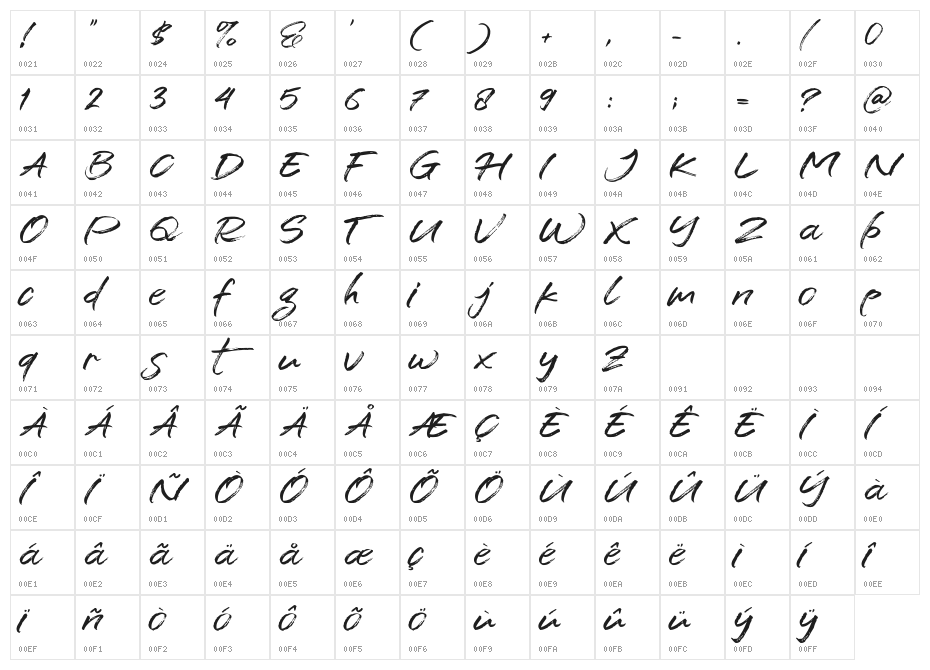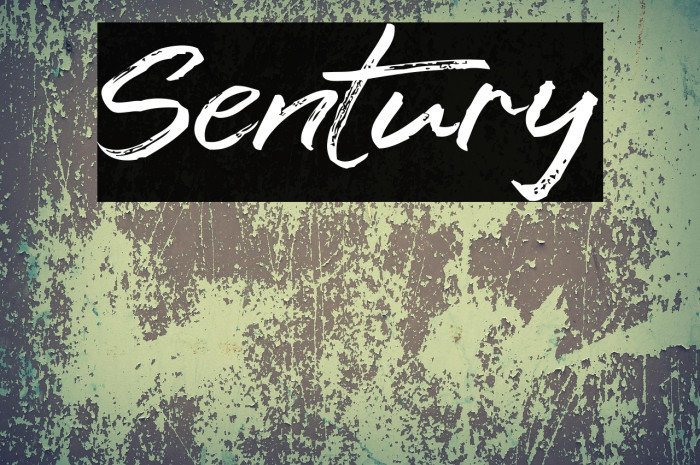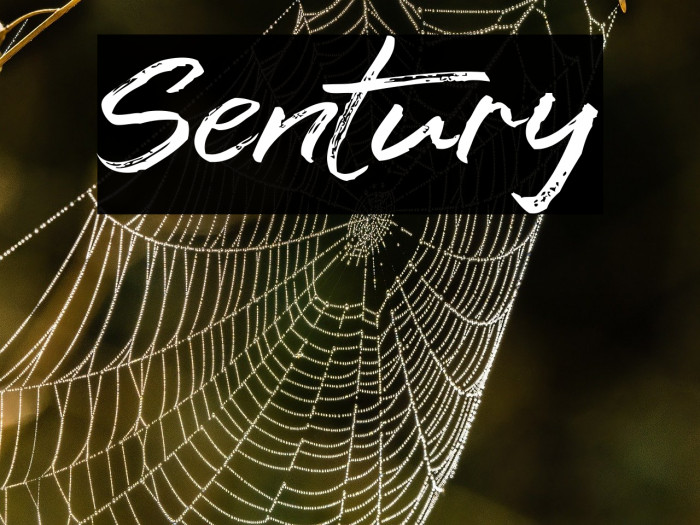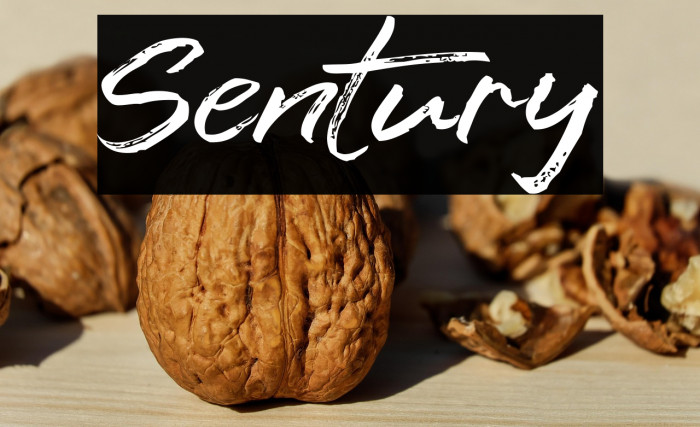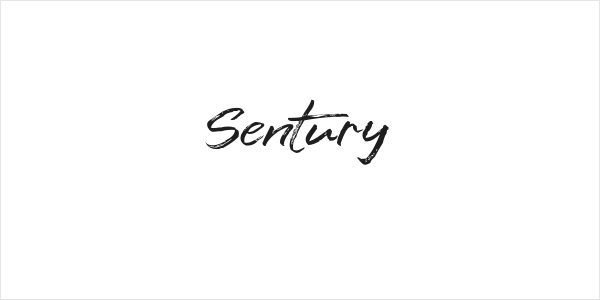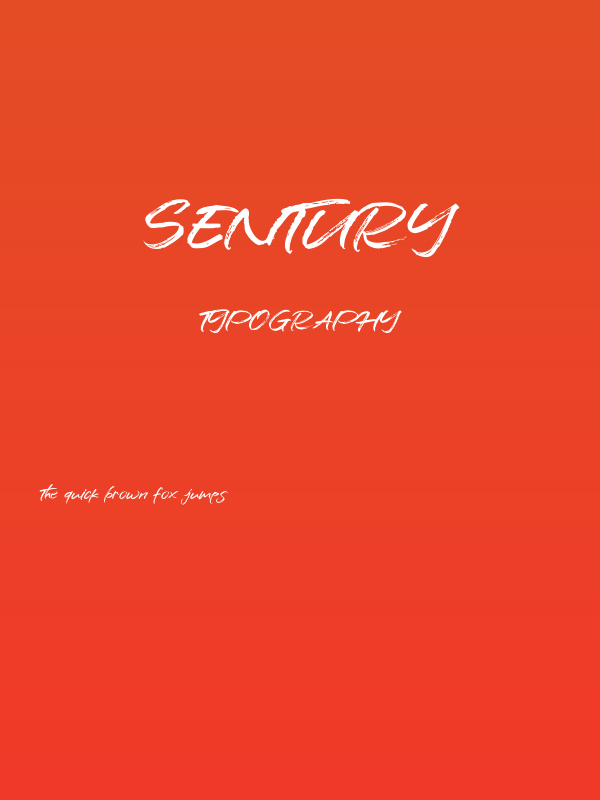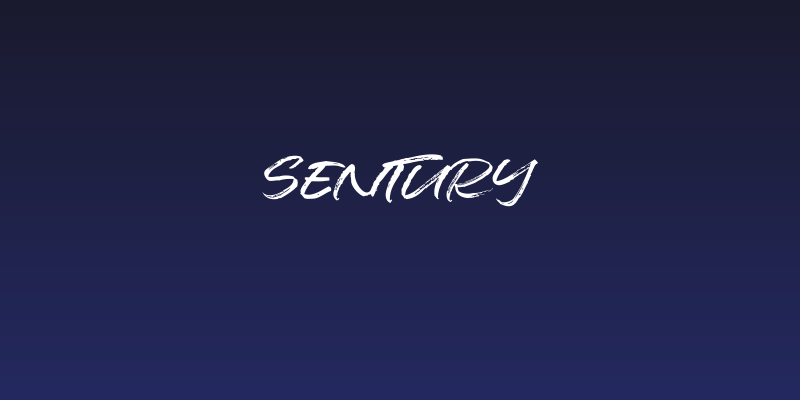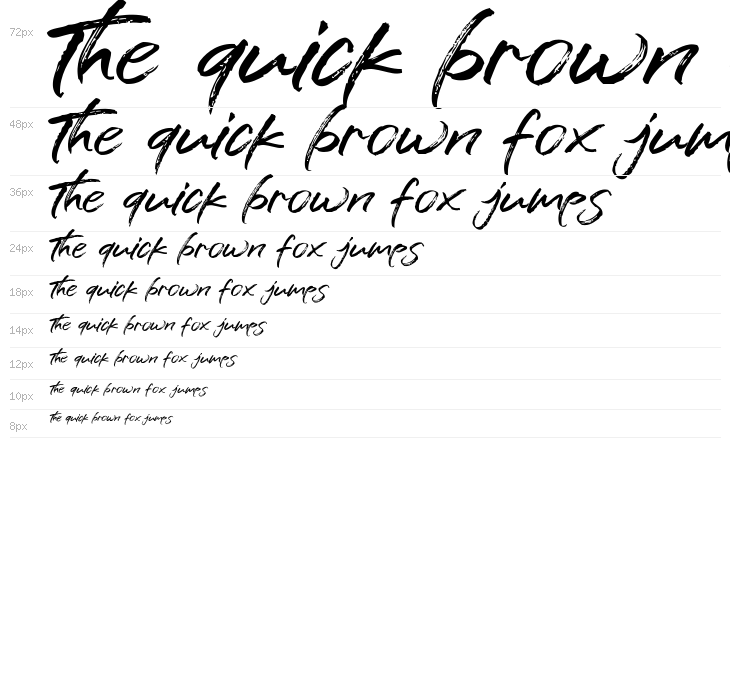
Sentury Font
Sentury Description
This font exudes a dynamic and expressive style, characterized by its brush-like strokes and fluid motion. The letters are crafted with a sense of spontaneity, giving it a handwritten appearance that is both artistic and energetic. The uppercase and lowercase letters maintain a consistent flow, while the numbers and special characters complement the overall aesthetic. The texture of the strokes varies, adding depth and a tactile feel to the design. This font is ideal for projects that require a personal touch or a creative flair, making it suitable for artistic endeavors, branding, and expressive typography.
| Use Case | Logos, Headlines, Artistic projects |
| Proposed Projects | Ideal for branding, artistic projects, expressive typography, and creative designs. |